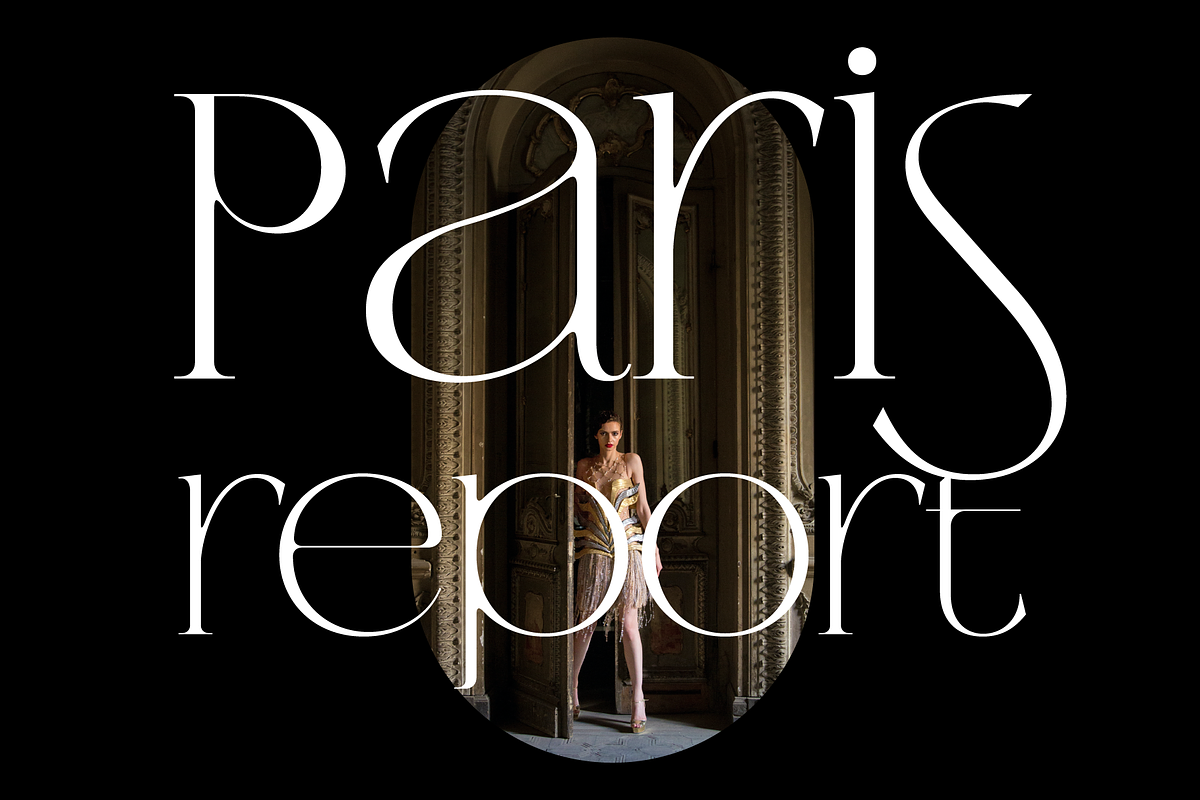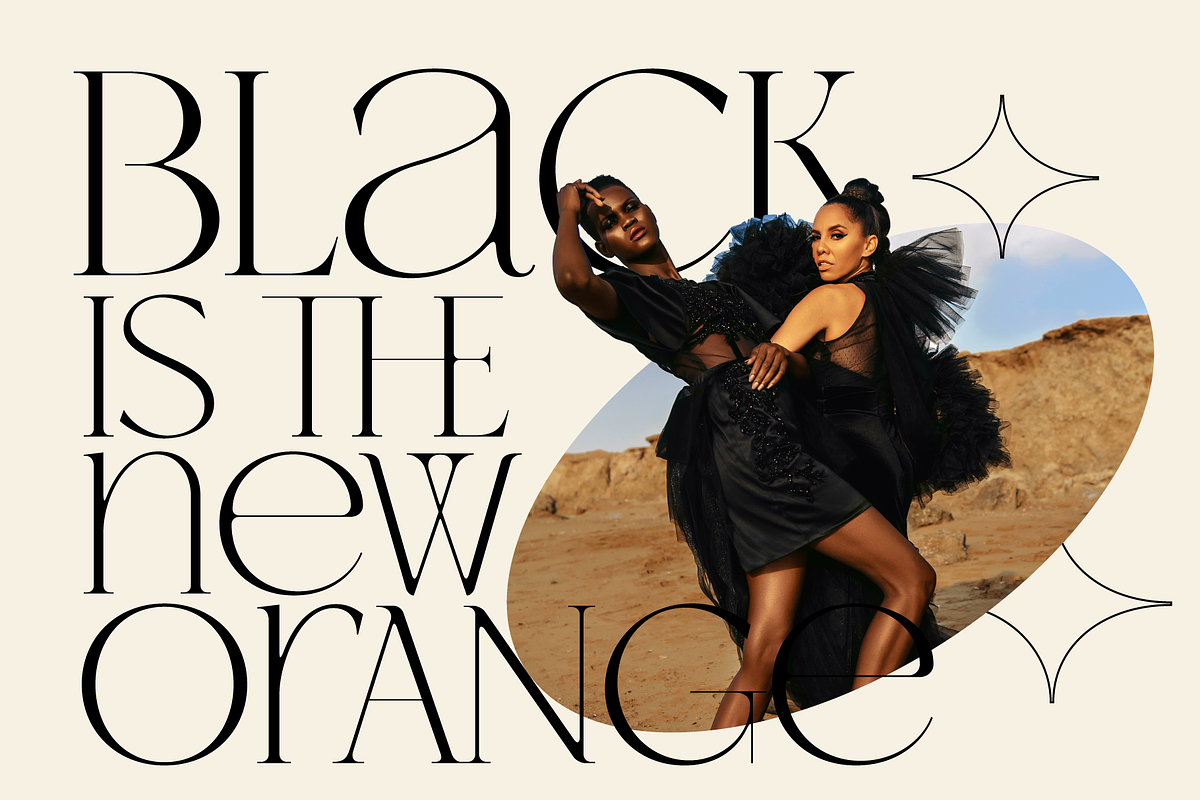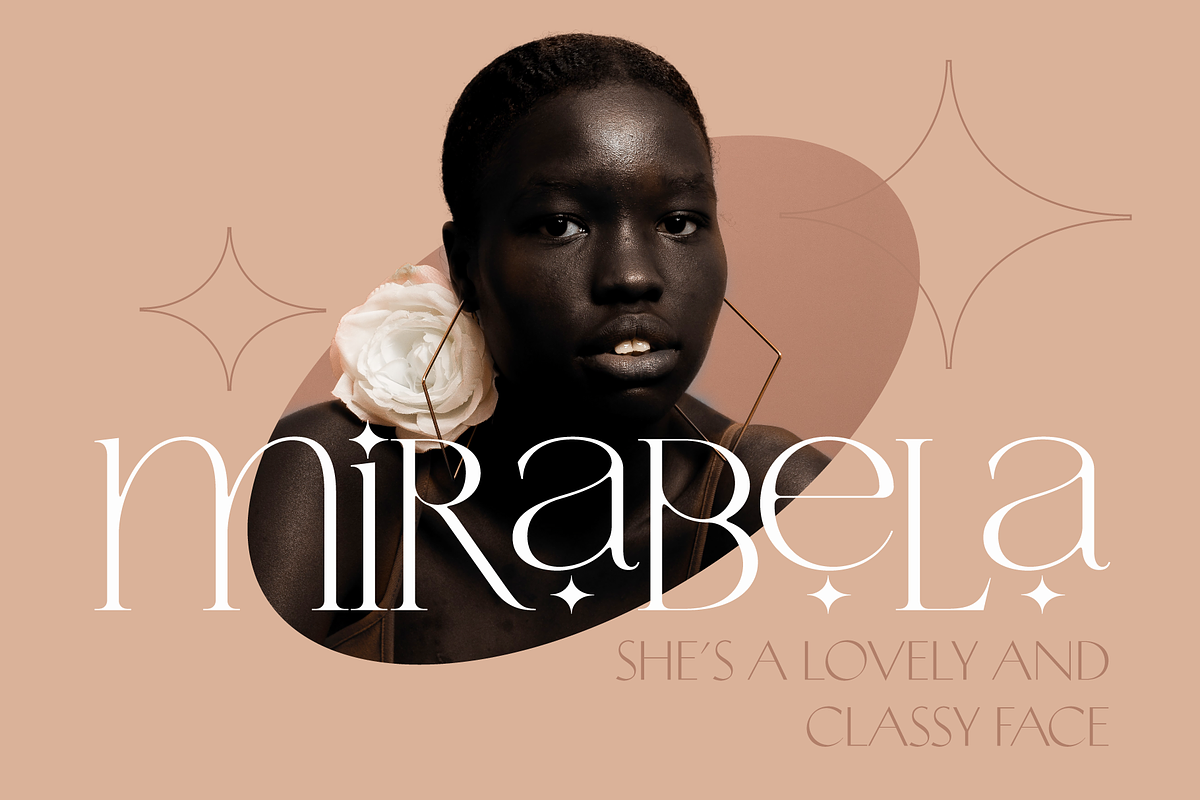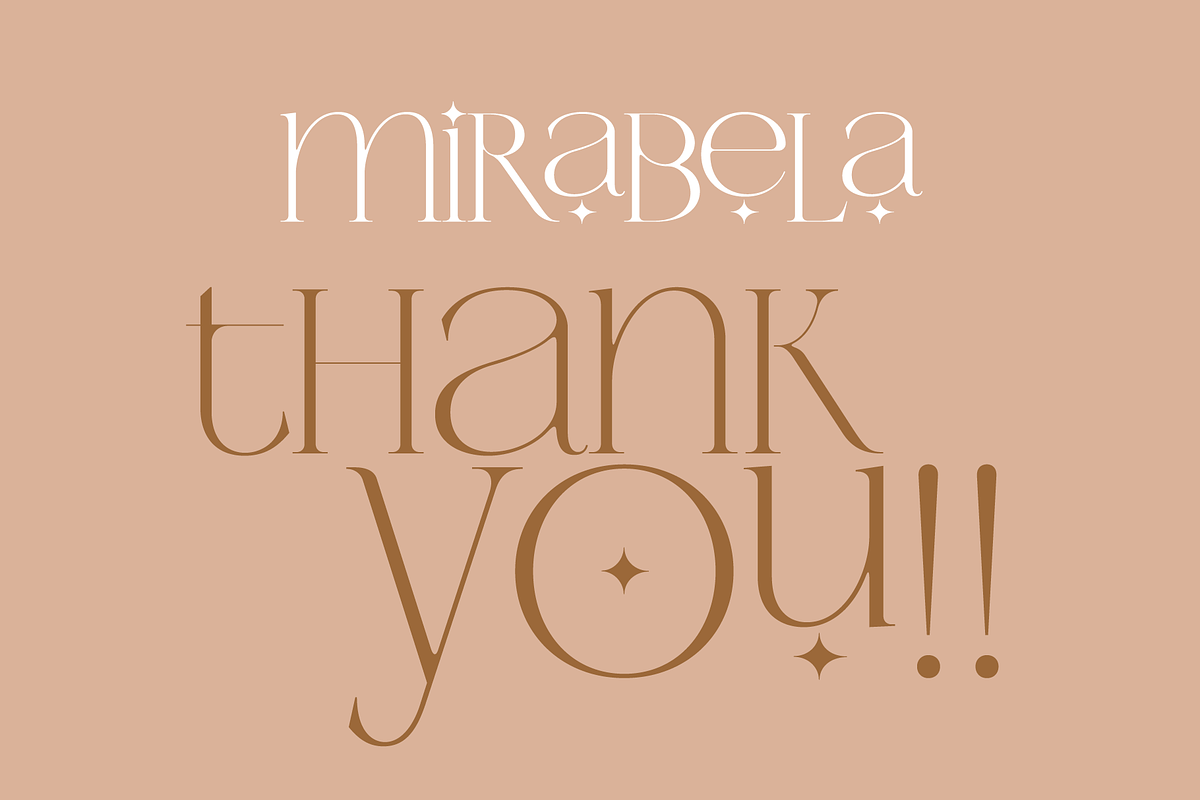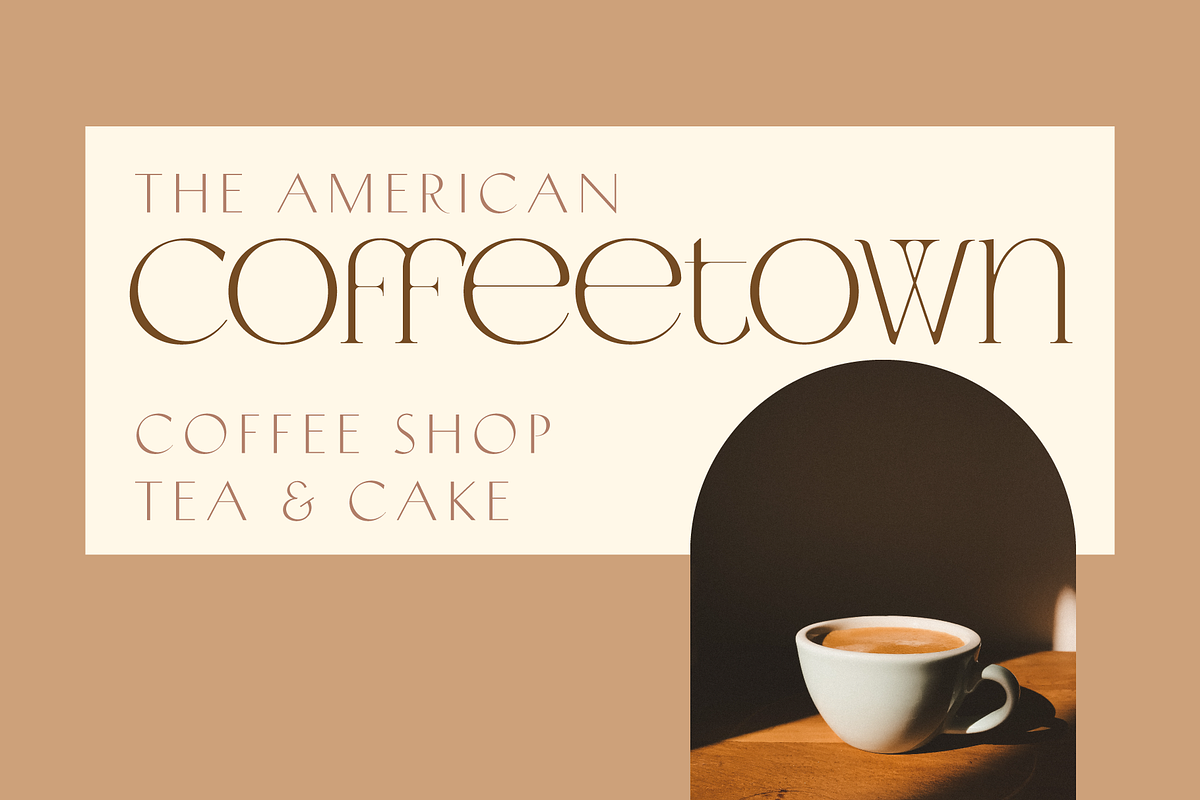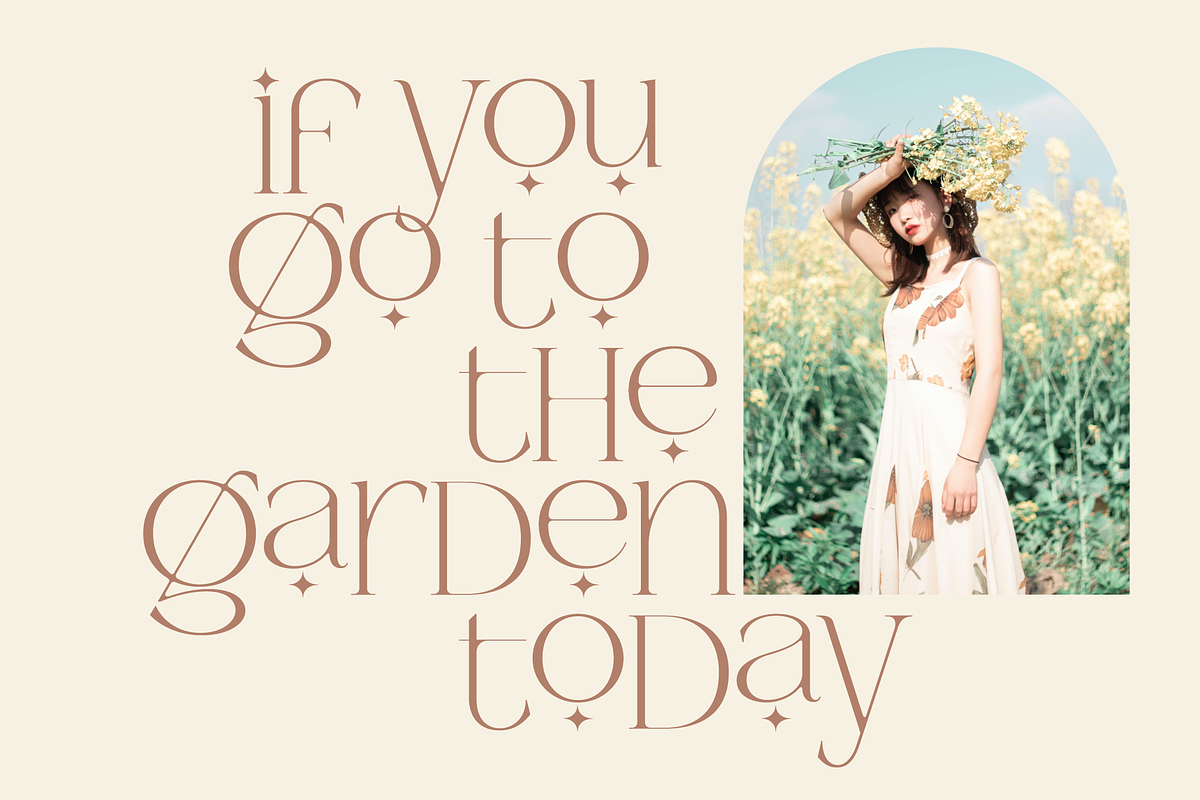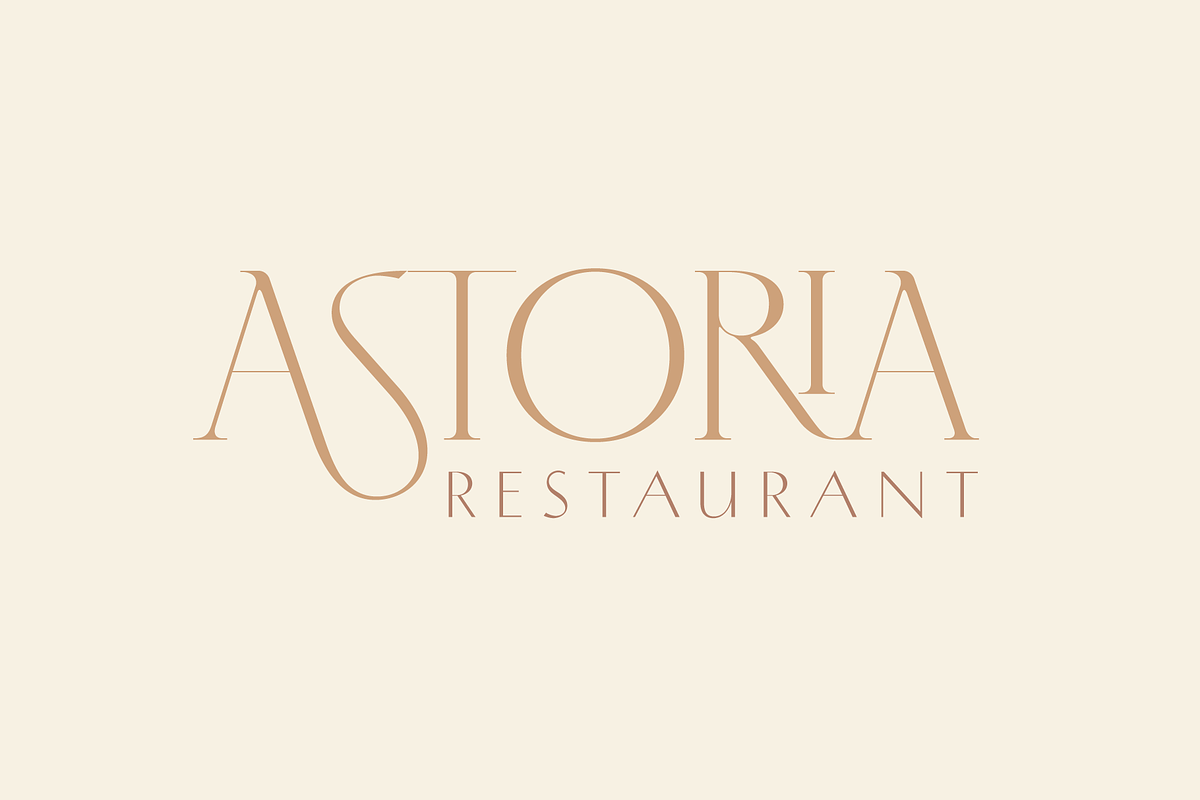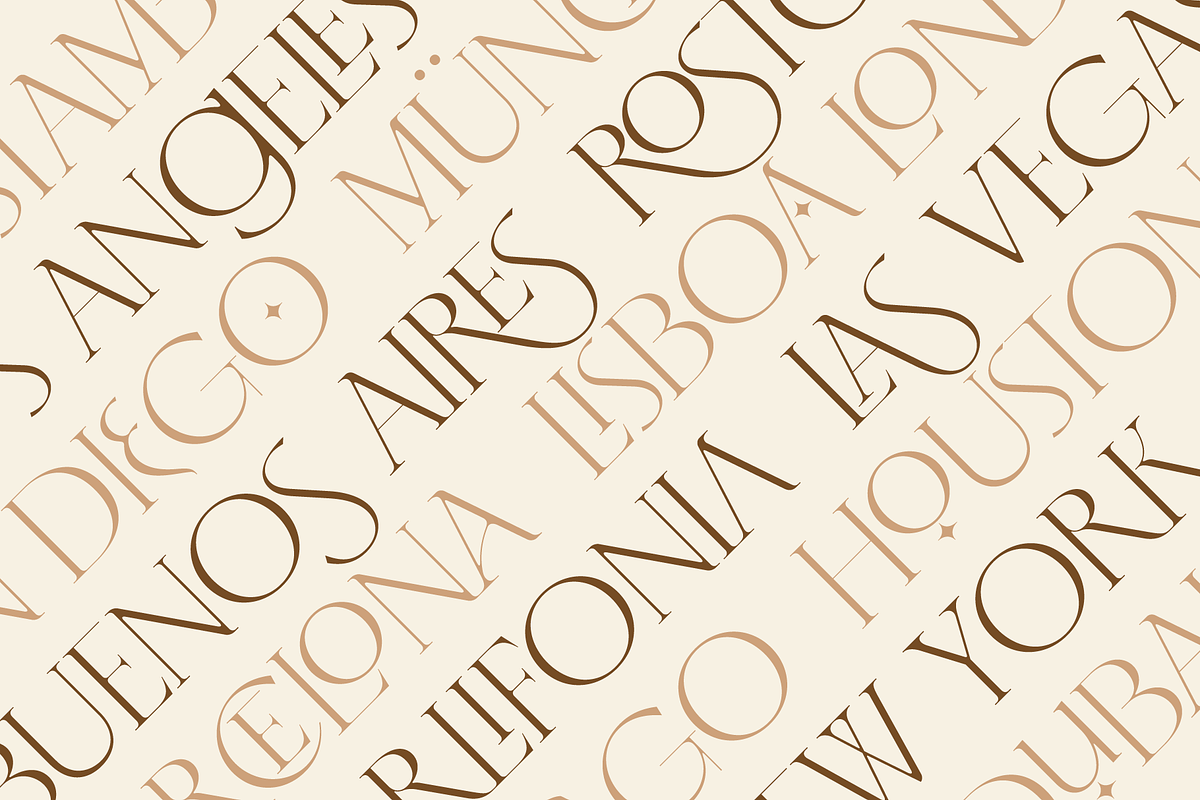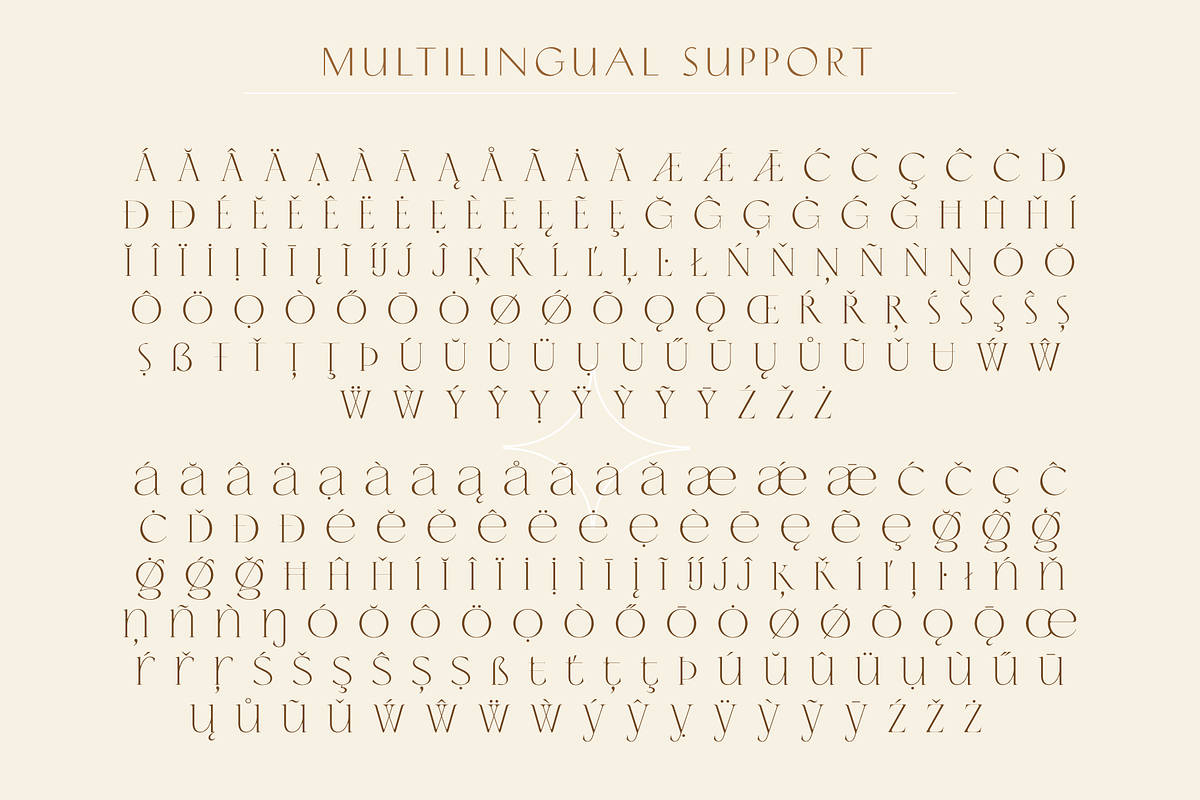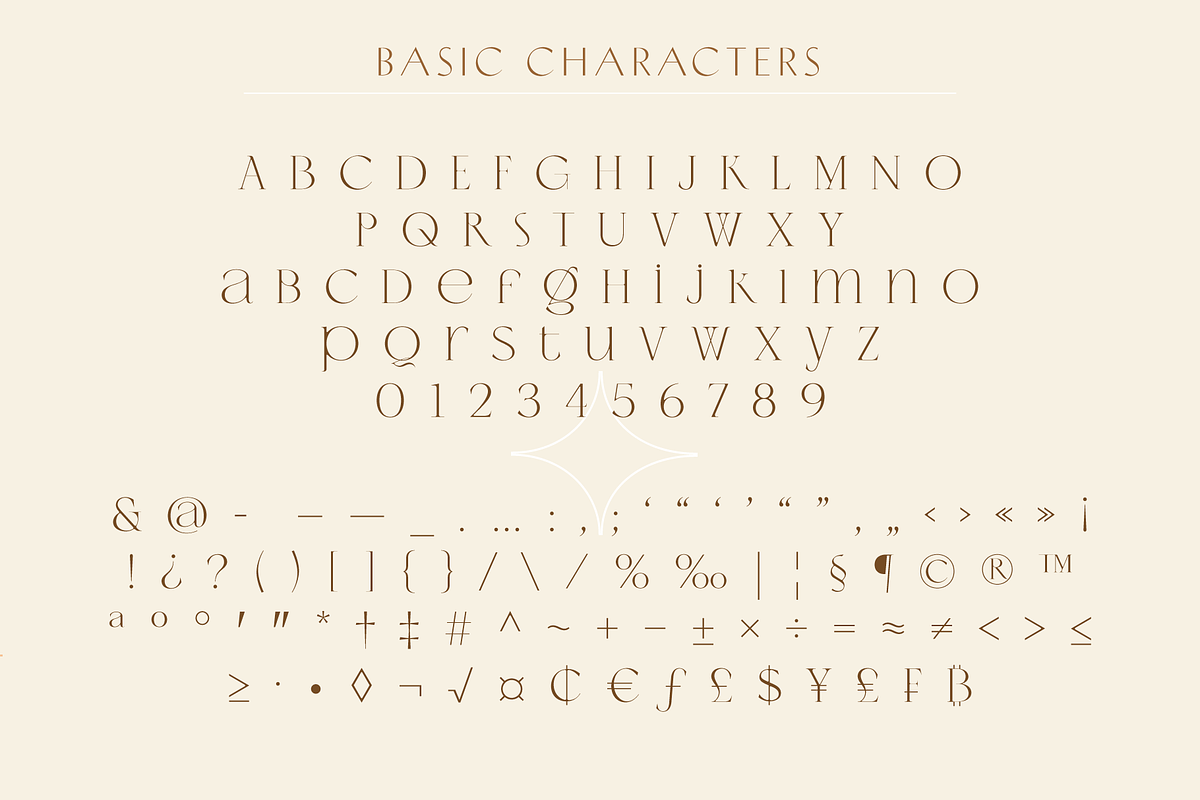
Mirabela - Lovely & Classy Serif
Mirabela is a lovely and classy serif font. She has mixed uppercase and lowercase letters that share the same height and allows infinite combinations to give your project a unique style. Mirabela is equipped with a variety of OpenType features to give you all you need for great design: various sets of alternates, standard and discretionary ligatures. Mirabela is very suitable for posters, packaging, branding, logotype, headlines, titles and editorial design.
- Ligatures - Standard and Discretionary
- Multi-Lingual Support
- Alternates characters